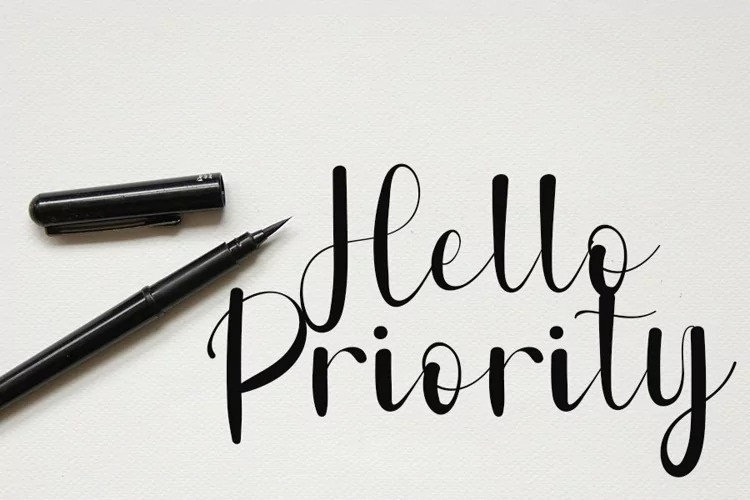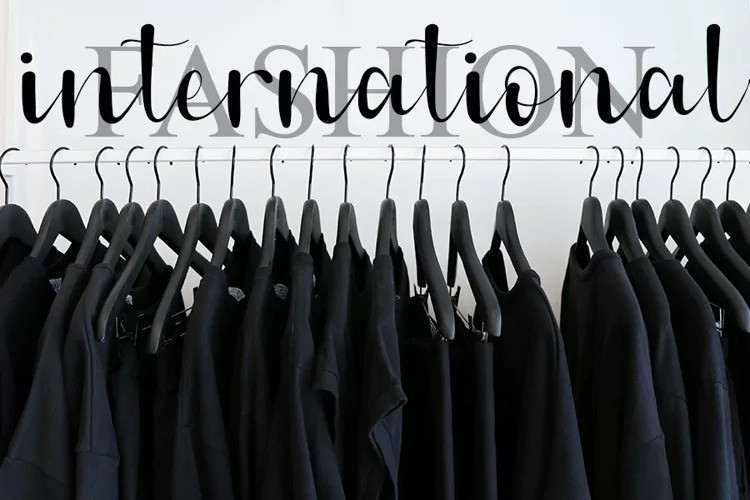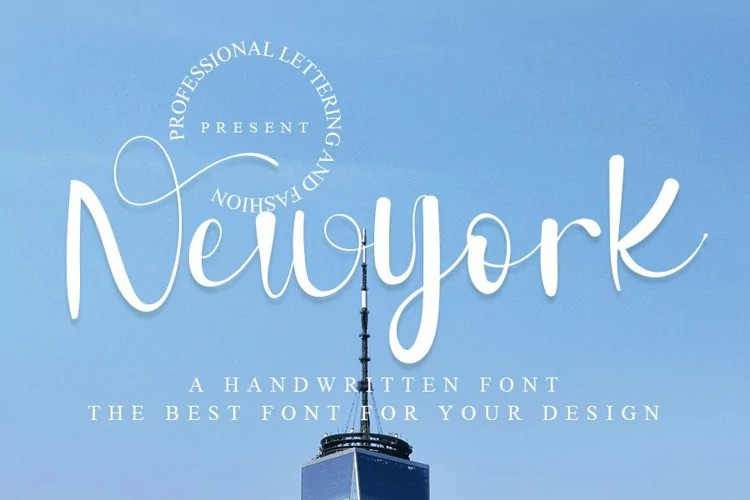
Newyork Font
Newyork Font is a great Calligraphy font. Can be used for various purposes such as logos, wedding invitations, headings, t-shirts, youtube banners, layers, banners, mockups and many more. This font is PUA encoded which means you can access all glyphs and swashes with ease!